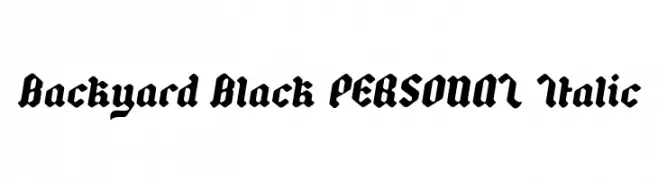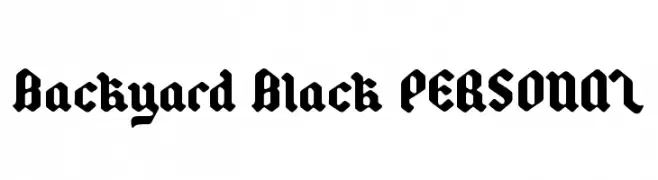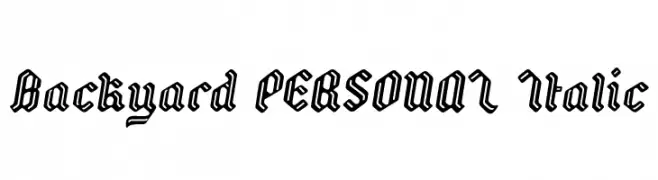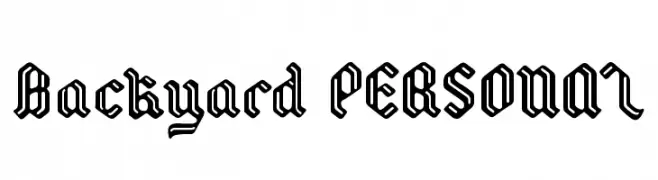
A bold blackletter font with sharp, angular lines and a gothic aesthetic.
A bold, angular blackletter-style font with an italic slant.
A bold blackletter font with intricate, angular letterforms.
A bold, italic blackletter-inspired font with dramatic strokes and sharp angles.